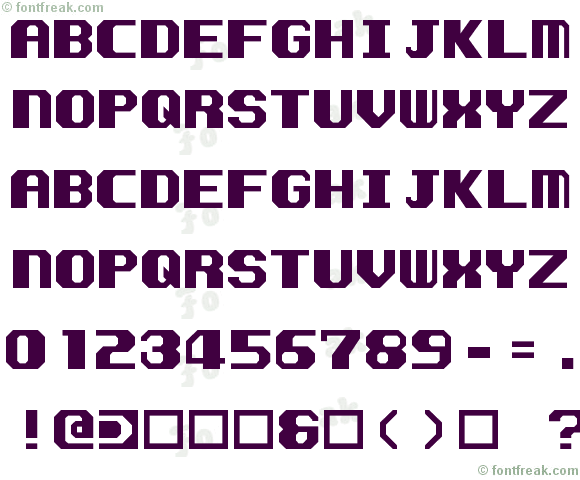
Kemco Smooth Bold
About Kemco Smooth Bold
The Kemco Smooth Bold font, designed by Jayvee Enaguas, is a striking display typeface that captures attention with its contemporary aesthetic. As a sans-serif font, it features clean lines and a modern, geometric structure. The bold stroke weight lends a strong presence, making it ideal for headlines and other prominent text. The font's smooth edges and balanced spacing contribute to its readability, while the slight contrast in thickness adds dynamism without overwhelming the viewer.
This versatile typeface shines in various applications. It's particularly well-suited for eye-catching movie posters, where its boldness can convey excitement and drama. Additionally, it can enhance restaurant menus, helping to create a stylish and modern dining experience that stands out to patrons. The Kemco Smooth Bold font is also a great choice for branding projects, especially for small business owners looking to establish a memorable visual identity. Content creators will find it effective for promotional materials and social media graphics, where capturing the audience's attention is crucial.
What sets the Kemco Smooth Bold font apart is its unique blend of modern aesthetics and functionality. Its strong, smooth lines create an engaging visual experience that enhances any design. Whether you're crafting a bold statement for a marketing campaign or designing a sleek logo, the Kemco Smooth Bold font free download is an excellent choice to elevate your creative projects.